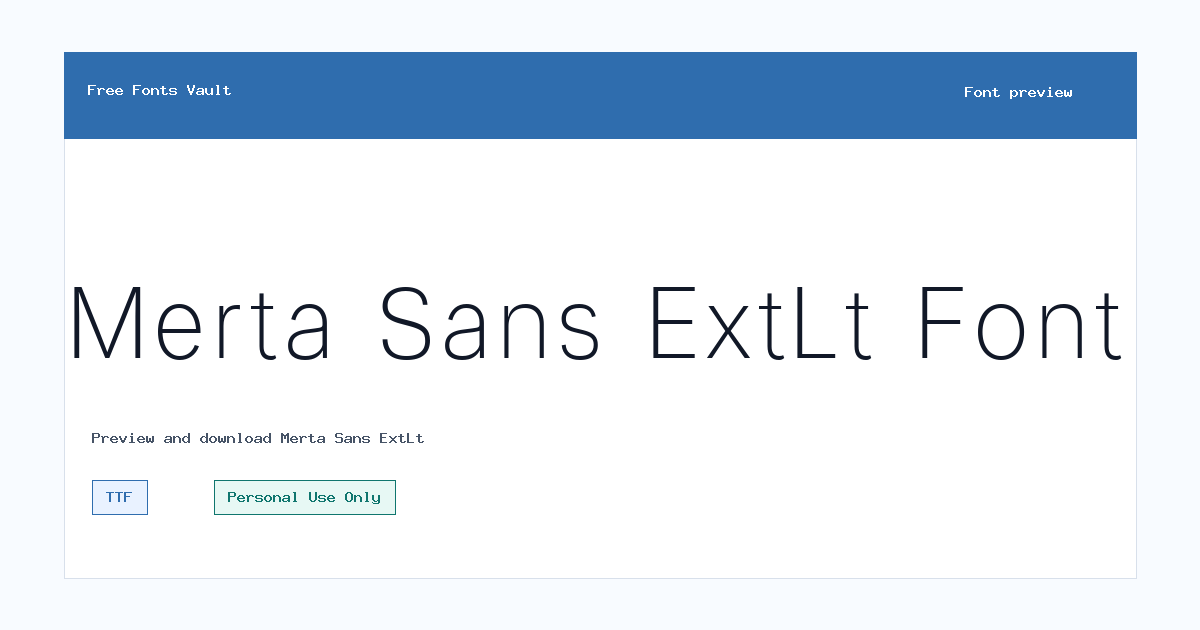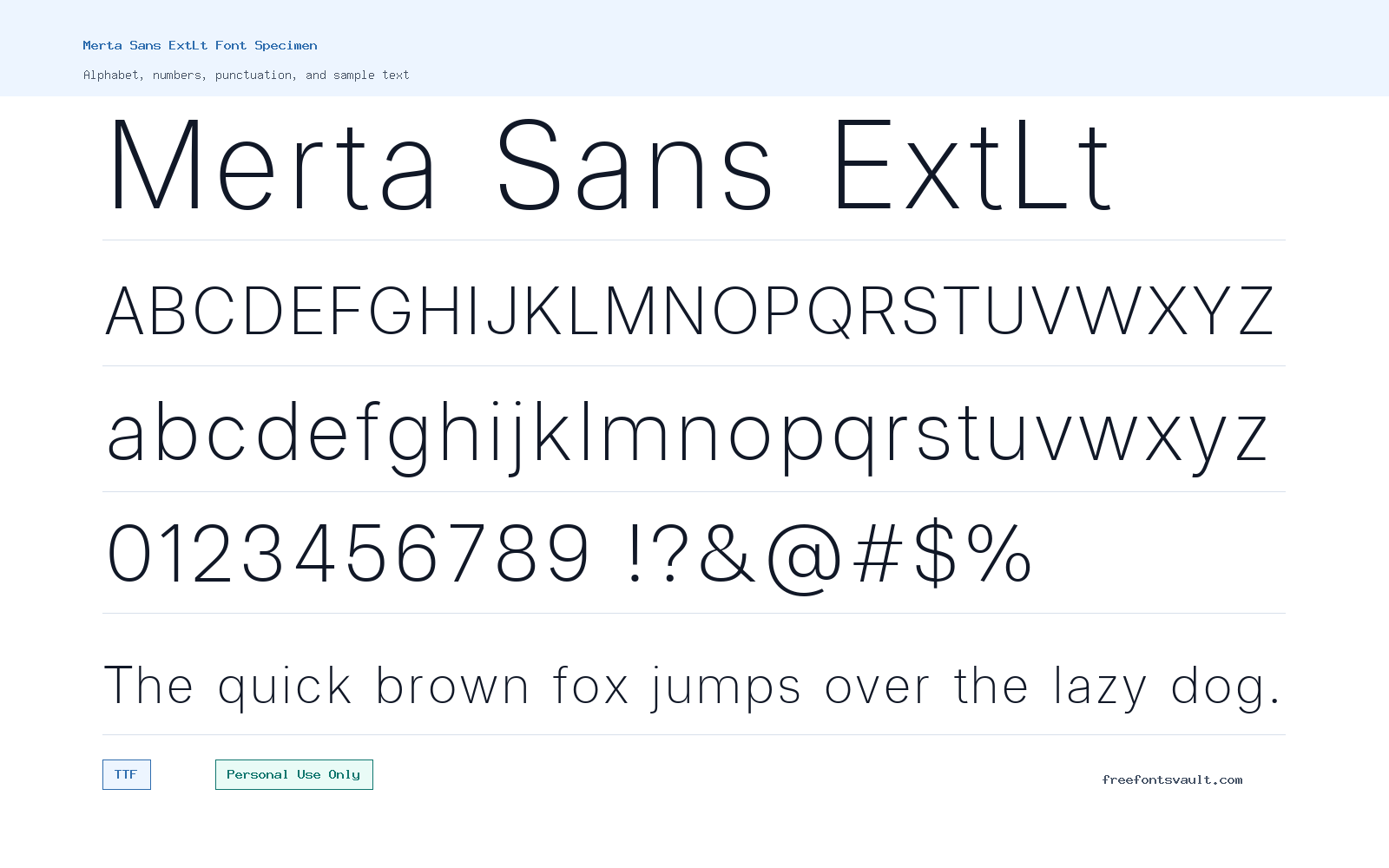
Merta Sans ExtLt
- Designer Diki Pradipta Tri Atmojo
- Foundry Lettertype Studio Co.
Merta Sans ExtLt font.
Merta Sans ExtLt is an extra-light sans serif demo font from the Merta Sans family, designed for clean, airy typography where a thin letterform can carry the message without feeling heavy.
About Merta Sans ExtLt
Merta Sans ExtLt has the quiet look many designers want from a light sans serif: slim strokes, a modern feel, and a simple structure that works best when the text has room to breathe. The ExtraLight weight makes it useful for elegant headings, minimal logo drafts, editorial-style layouts, presentation covers, and poster text where the design needs a refined tone rather than a bold voice. Because the available file is a demo TrueType font, it is a practical choice for testing the style in personal projects, mockups, and early visual concepts.
- Extra-light sans serif style with thin, clean letterforms for spacious display typography
- Works best at medium to large sizes where the light weight remains visible
- A simple sans serif look that can pair well with a sturdier body font
- Minimal logo drafts and wordmark exploration
- Poster titles, quote graphics, and editorial-style headings
- Web and app mockups that need a clean, light display font
- Personal branding concepts and presentation covers
- Packaging, label, and social media layout previews
This ExtraLight weight is best treated as a display font rather than a body-text font. Test it on your intended background, increase size and spacing when needed, and avoid using it for dense paragraphs or small interface labels. For balanced layouts, combine it with a regular or medium-weight sans serif for supporting text so the design keeps both elegance and readability.
What kind of font is Merta Sans ExtLt?
It is an extra-light sans serif demo font. The thin weight gives it a clean, modern look that works best for larger display text rather than long reading.
Is Merta Sans ExtLt good for body text?
It is better for headings, titles, and short display text. The extra-light weight may become hard to read in small sizes or long paragraphs.
What should I pair with Merta Sans ExtLt?
Pair it with a more readable regular-weight sans serif for body copy. The contrast between a thin display heading and a sturdier text font can make a layout feel cleaner and easier to read.